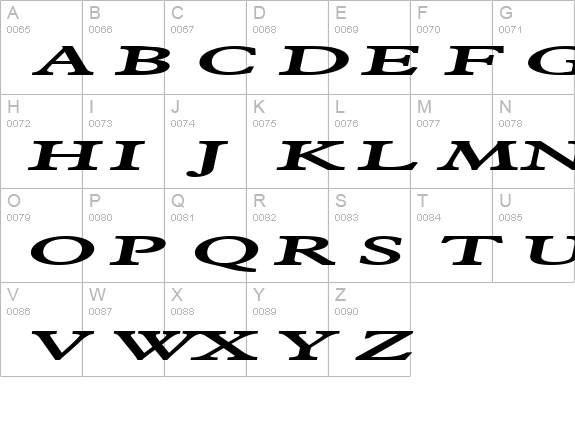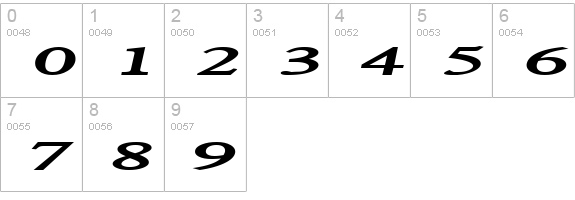
Nadine Extended BoldItalic Font Details
Nadine Extended BoldItalic is a distinctive, extended-width variant in the Nadine typeface family \xE2\x80\x94 well suited to design and typography projects.
Nadine Extended BoldItalic is a stylish and modern font that exudes sophistication and elegance. Its bold yet graceful curves make it perfect for adding a touch of luxury to any design project. The sleek lines and slanted italics of Nadine Extended BoldItalic create a sense of movement and dynamism, making it a versatile choice for both print and digital applications. What sets Nadine Extended BoldItalic apart is its versatility and readability, making it suitable for a wide range of design projects. Whether you're designing a sleek logo, elegant wedding invitation, or eye-catching poster, this font is sure to make a statement. Best of all, Nadine Extended BoldItalic is available for free download at FontsMarket.com. So you can elevate your designs without breaking the bank. Don't miss out on this opportunity to add a touch of sophistication to your projects with Nadine Extended BoldItalic.